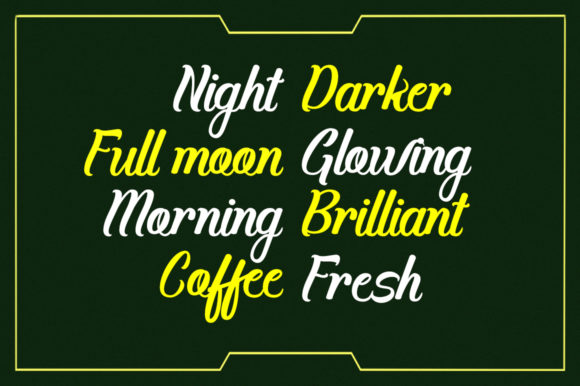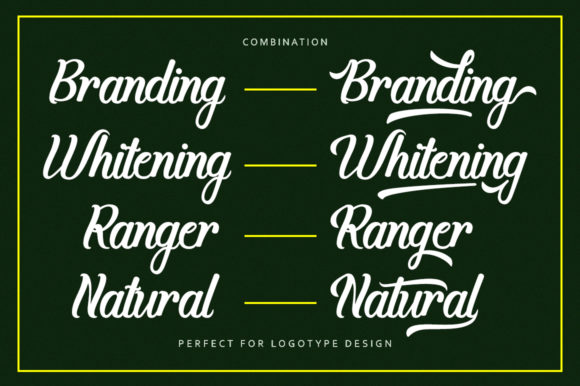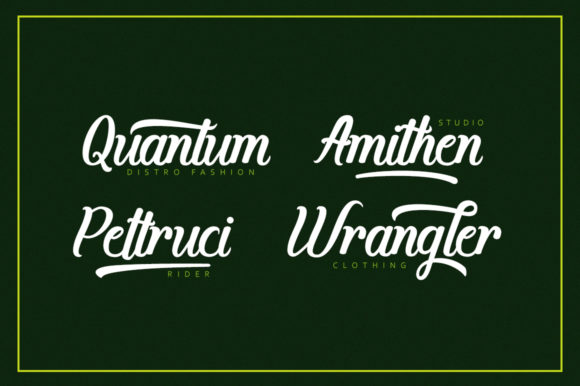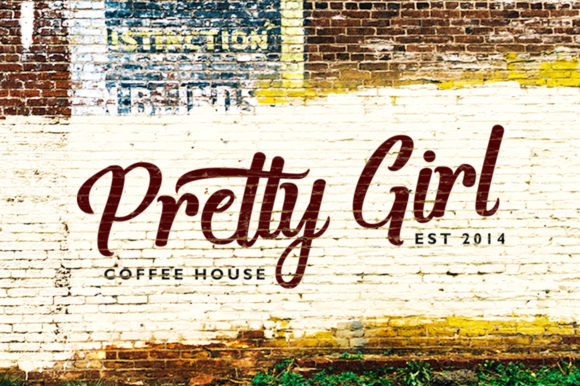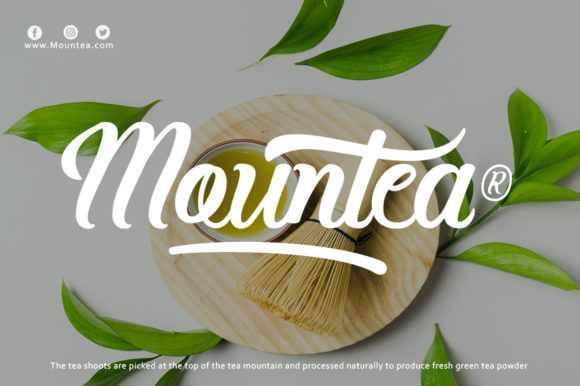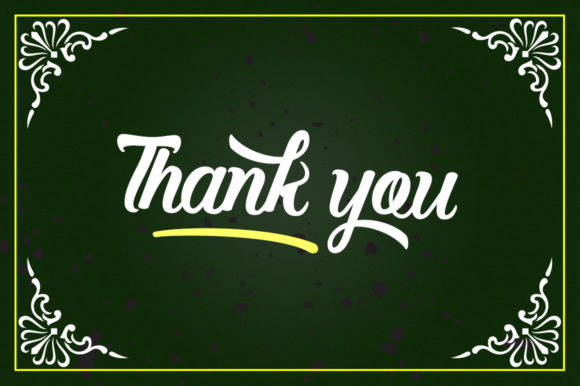
Introducing Brenday Font: The Ultimate Retro Style Handwritten Font
Are you a designer or crafter looking for a unique and stylish font to elevate your creative projects? Look no further than Brenday Font, a retro style handwritten font that’s bold, clean, and versatile. In this article, we’ll dive into the features and benefits of Brenday Font, and explore how it can be used to take your designs to the next level.
What is Brenday Font?
Brenday Font is a carefully crafted retro style handwritten font that’s perfect for a wide range of creative applications. Its bold and clean design makes it highly legible, while its unique character ensures that your designs stand out from the crowd. Whether you’re working on a t-shirt design, signage, logo, branding, packaging, or any other project, Brenday Font is an excellent choice.
Key Features of Brenday Font
- Retro Style: Brenday Font boasts a distinctive retro style that’s reminiscent of classic handwritten fonts from the past. Its unique character is sure to add a touch of nostalgia and personality to your designs.
- Bold and Clean: The font’s bold and clean design ensures that it’s highly legible, even at smaller sizes. This makes it perfect for use on a variety of materials, from t-shirts and signage to logos and packaging.
- Versatile: Brenday Font is incredibly versatile, and can be used for a wide range of creative applications. Whether you’re working on a personal project or a client’s brief, this font is sure to deliver.
Benefits of Using Brenday Font
So why choose Brenday Font for your next design project? Here are just a few benefits of using this amazing font:
- Adds Personality: Brenday Font adds a unique and playful personality to your designs, setting them apart from more generic fonts.
- Enhances Legibility: The font’s bold and clean design ensures that your text is highly legible, even at smaller sizes.
- Versatile: Brenday Font can be used for a wide range of creative applications, making it a great addition to any designer’s toolkit.
- Time-Saving: With Brenday Font, you can create professional-looking designs in no time. Its ease of use and versatility make it a great time-saving solution.
Using Brenday Font in Your Designs
So how can you use Brenday Font in your designs? Here are a few ideas to get you started:
- T-Shirts: Brenday Font is perfect for t-shirt designs, adding a bold and playful touch to your graphics.
- Signage: The font’s bold and clean design makes it ideal for use on signage, whether you’re creating a store sign, event banner, or directional sign.
- Logos: Brenday Font can be used to create unique and memorable logos that stand out from the crowd.
- Branding: The font’s retro style and playful personality make it perfect for use in branding materials, such as business cards, letterheads, and packaging.
- Packaging: Brenday Font can be used to add a touch of personality to your packaging designs, making them more eye-catching and memorable.
In conclusion, Brenday Font is an amazing retro style handwritten font that’s perfect for designers and crafters looking to add a touch of personality to their creative projects. Its bold and clean design, versatility, and ease of use make it a great addition to any designer’s toolkit. Whether you’re working on a t-shirt design, signage, logo, branding, packaging, or any other project, Brenday Font is sure to deliver. So why wait? Download Brenday Font today and take your designs to the next level!